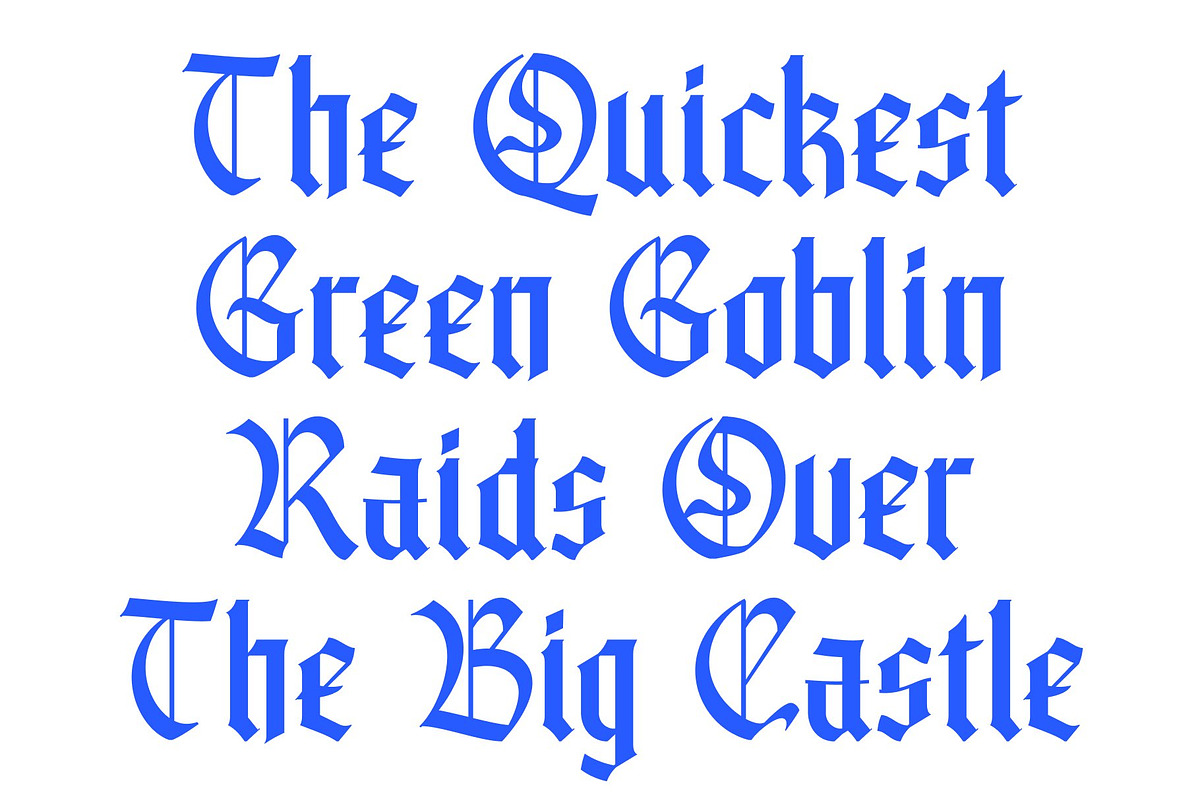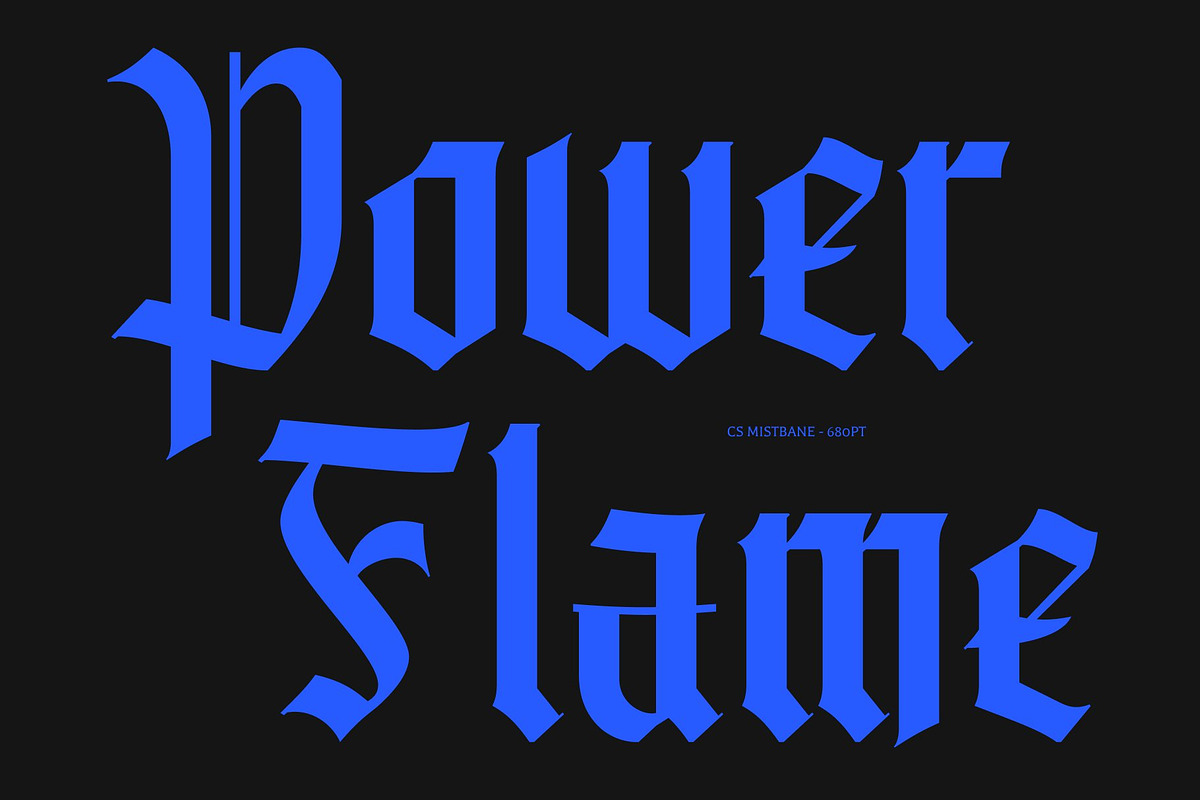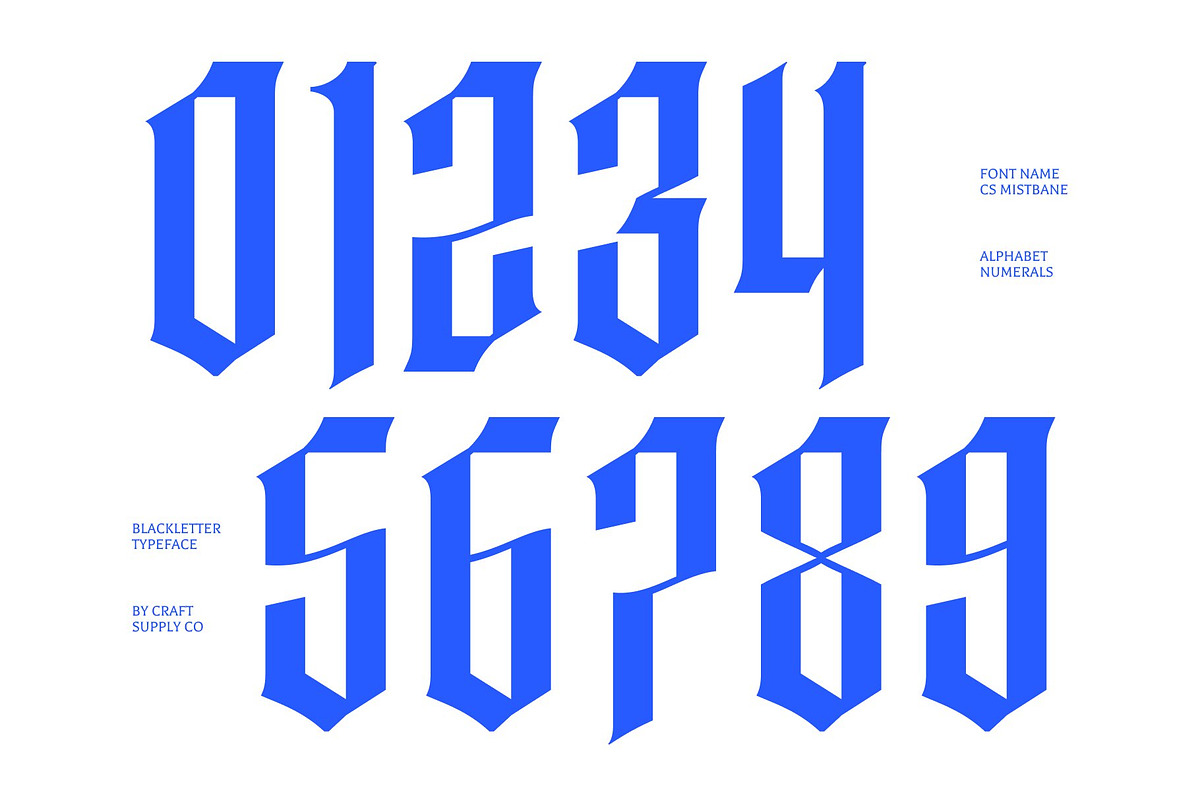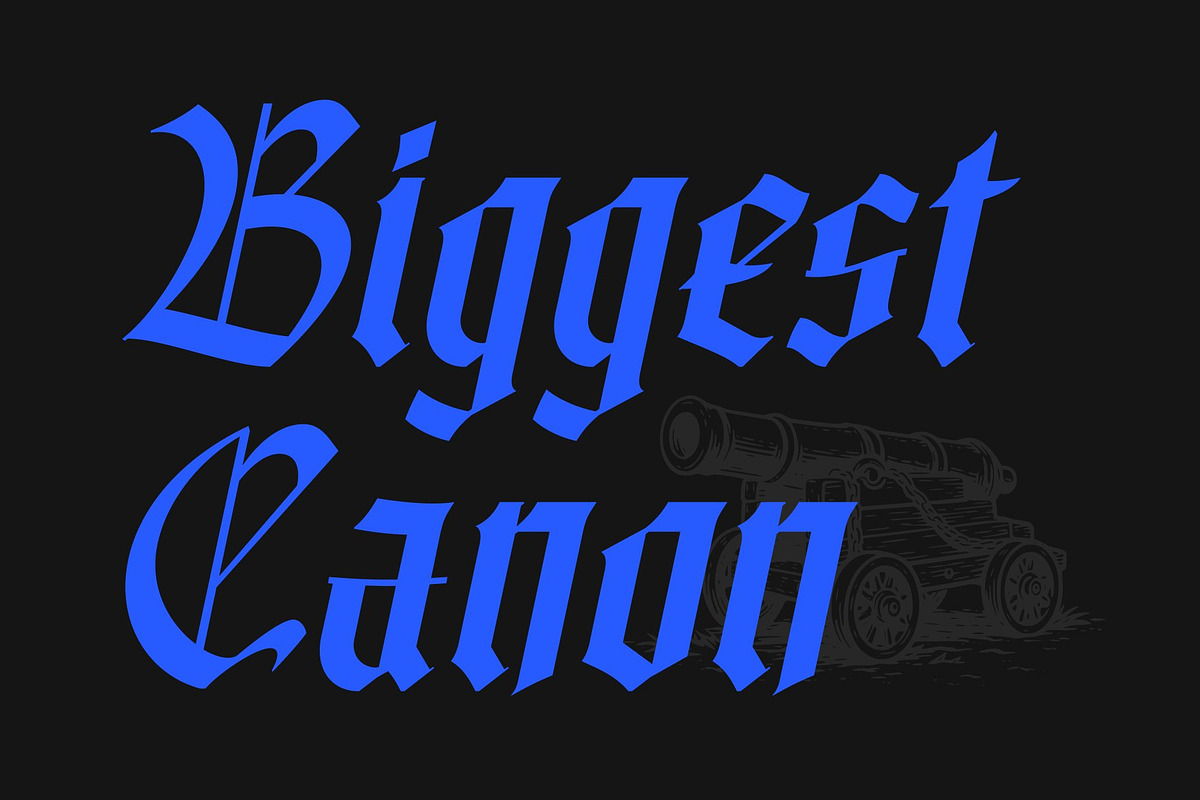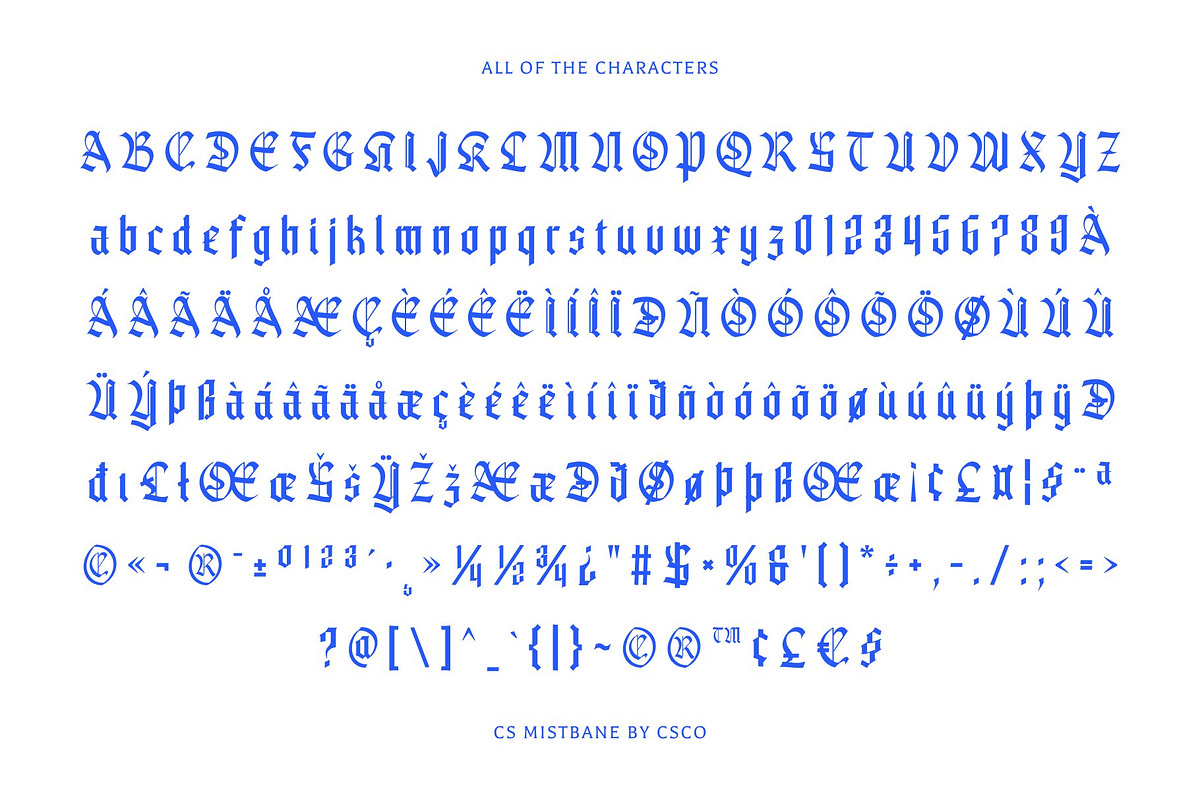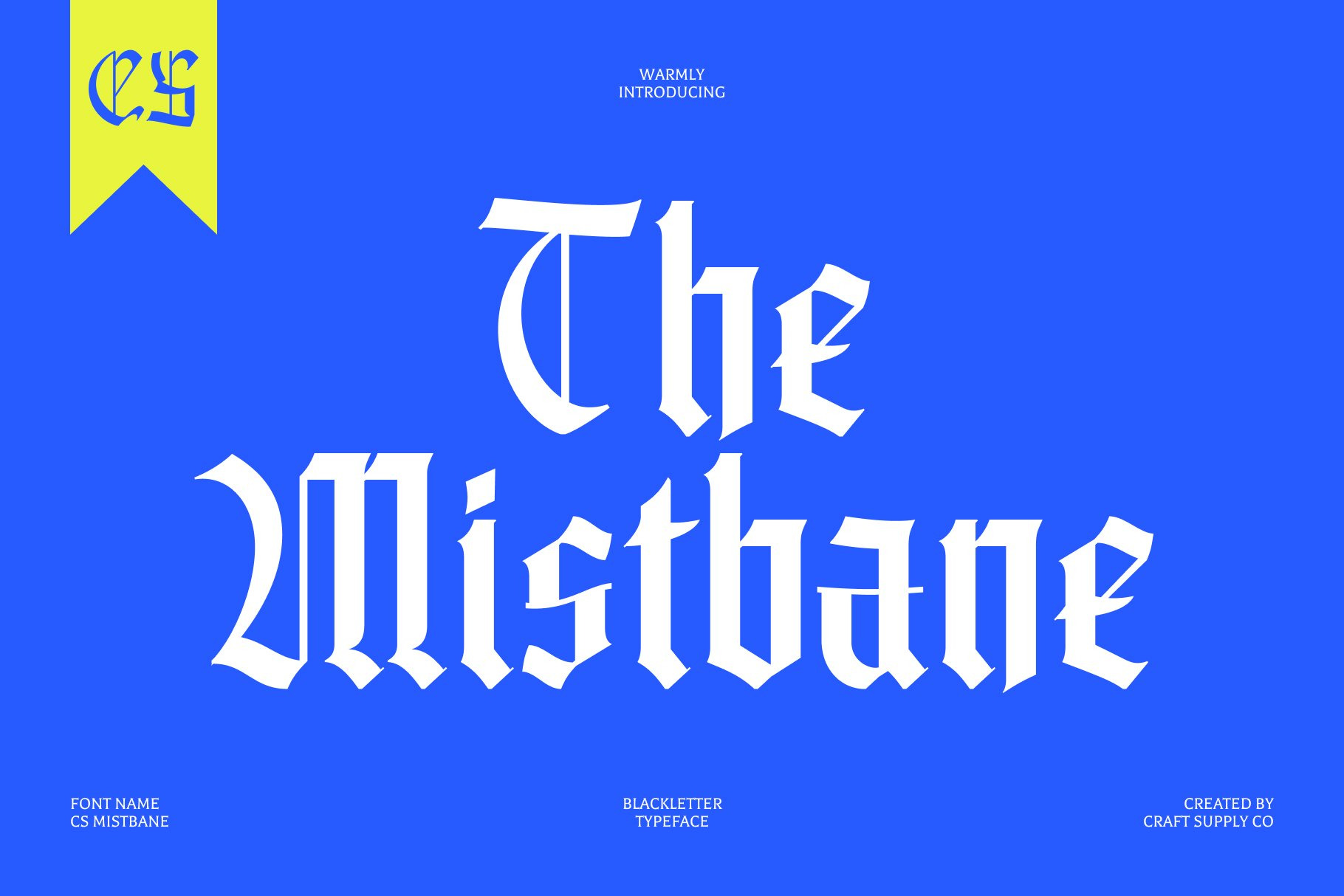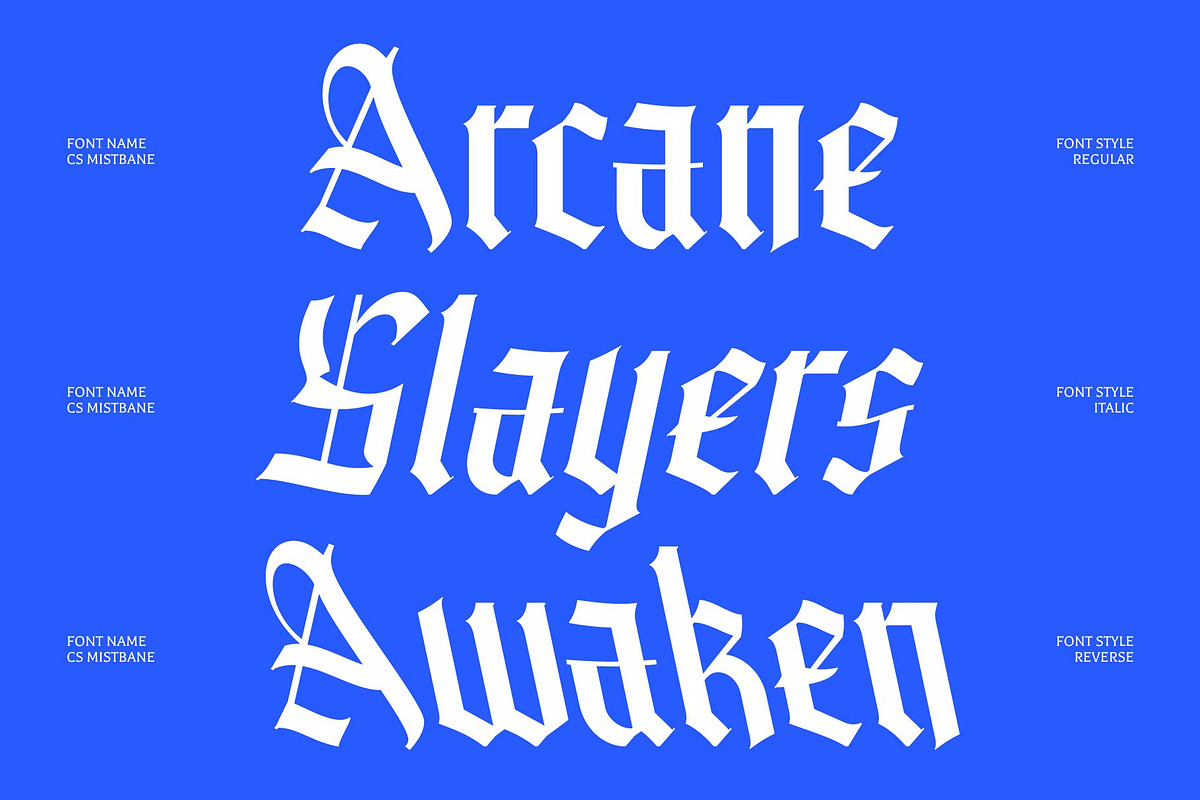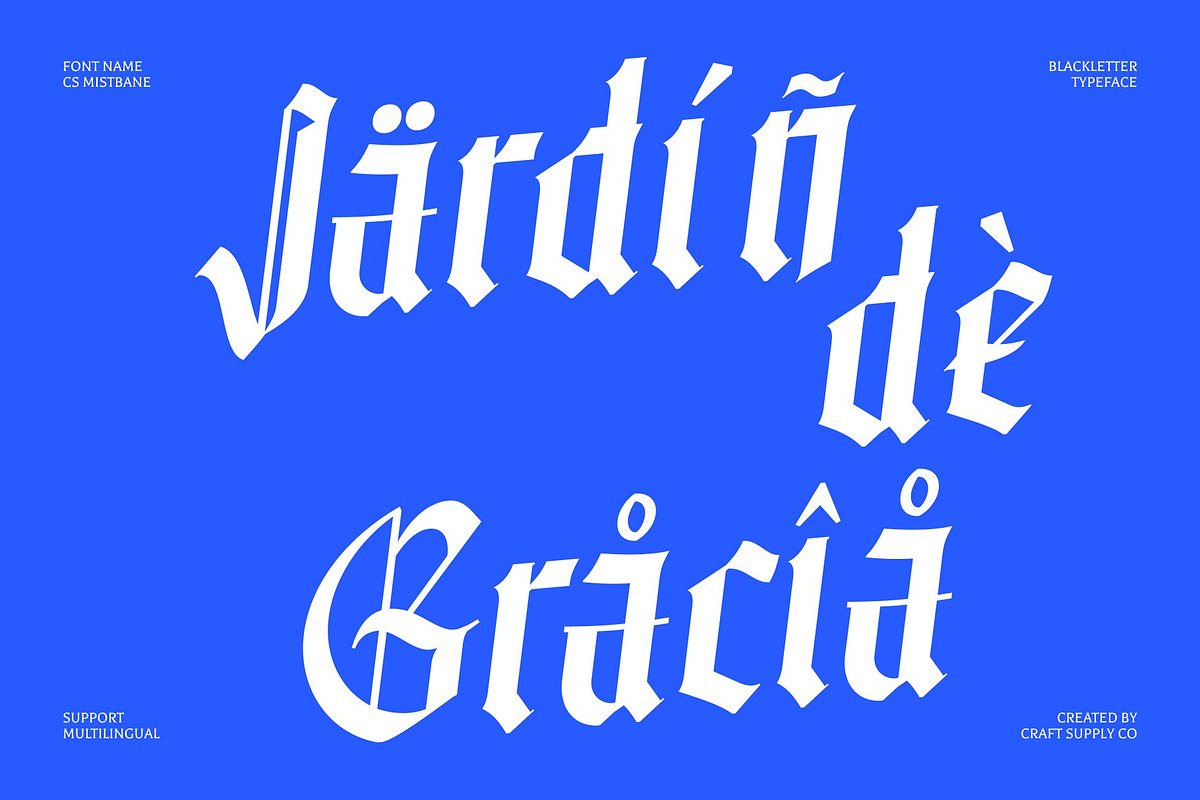
CS Mistbane – Blackletter Font
CS Mistbane – Decorative Blackletter Display Font with Expressive Edge
Display Font with Bold Blackletter Influence This is a decorative display font inspired by traditional Blackletter forms, reimagined with a bold and expressive modern touch. Its intricate letterforms and dramatic structure create a powerful visual identity that feels both historic and artistically distinctive. This typeface is crafted for designers who want typography that commands attention with classic intensity.
Decorative Details with Classic Character The defining strength of this font lies in its ornate Blackletter-inspired construction. Sharp strokes, detailed terminals, and rhythmic contrast give the font a rich and expressive personality. These decorative elements evoke a sense of heritage and craftsmanship, while still feeling fresh and visually impactful.
Expressive Style with Strong Visual Presence This font delivers a bold and atmospheric tone that enhances any composition. Its dramatic forms turn words into visual statements, making it ideal for designs that require depth, mood, and character. The balance between tradition and expression ensures the font feels both timeless and unique.
Perfect for Posters, Branding, and Book Titles From posters and branding to book covers and creative editorial projects, this font offers a versatile solution for strong visual storytelling. Its decorative Blackletter style ensures your designs feel classic, expressive, and unforgettable.
CS Mistbane Regular
CS Mistbane Italic
CS Mistbane Reverse Italic